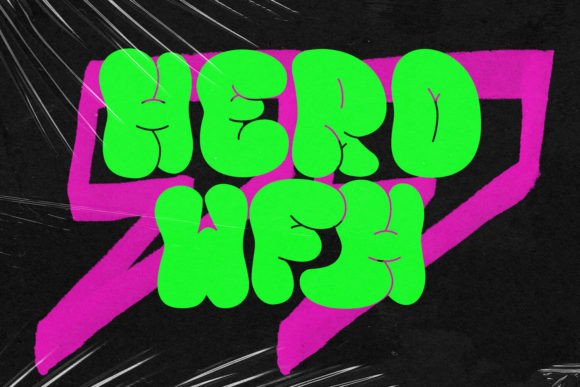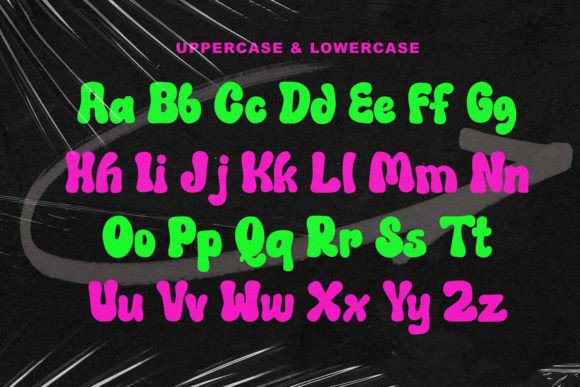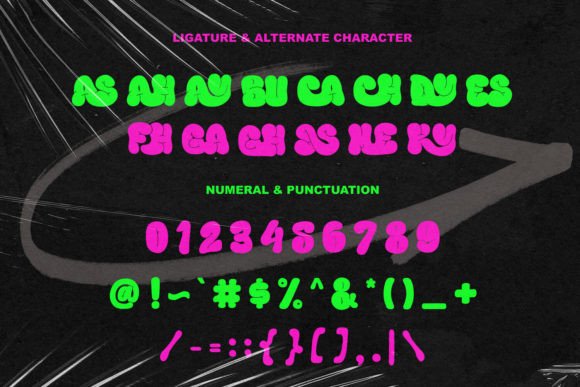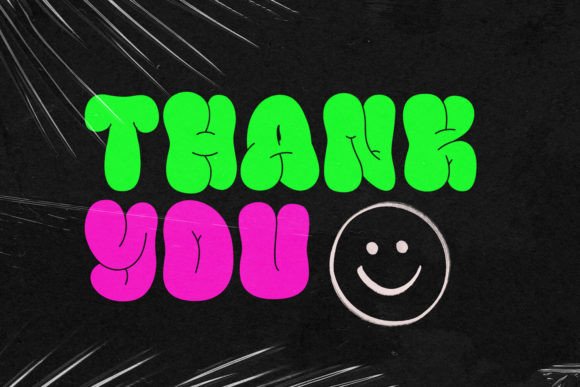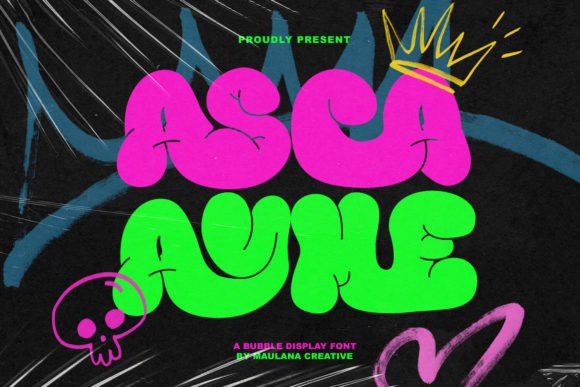
The Joy of Asca Ayme Bubble Display Font: A Designer’s Delight
Ah, the quest for the perfect font! I still remember the time I was working on a project for a children’s party invitation. My client wanted something fun, playful, and eye-catching. I spent hours scrolling through font libraries, but nothing seemed quite right. That was until I stumbled upon Asca Ayme Bubble Display Font. It was love at first sight! ✨ The rounded letters and cheerful vibe instantly captured the essence of the project, and I knew I had found my go-to font for all things fun and bubbly.
An Honest Review: What I Love and What to Consider
- ✨ Playful and bubbly personality: Asca Ayme Bubble Display Font is perfect for adding a fun touch to your designs.
- ✅ Easily readable: Despite its playful nature, the font remains clear and easy to read, even in larger sizes.
- 💫 Versatile: It works beautifully for titles, headers, and short paragraphs, making it ideal for posters, banners, and more.
- 🎉 Evokes a youthful feel: This font is sure to bring a smile to your audience’s faces, making it perfect for projects targeting a younger demographic.
While Asca Ayme Bubble Display Font is amazing for display purposes, it does have a few quirks to consider:
- 🤔 Legibility at small sizes: As with many display fonts, Asca Ayme Bubble may not be the best choice for body text or smaller sizes, as some details might get lost.
- ⚠️ Limited use in formal contexts: Given its playful nature, this font might not be suitable for more formal projects, such as business reports or academic papers.
A Practical Guide: Using Asca Ayme Bubble in Your Design Workflow
The Story Behind Asca Ayme Bubble
Asca Ayme Bubble Display Font was created with the intention of capturing the essence of playful, carefree designs. While the exact backstory of the font might not be well-documented, it’s clear that the designer aimed to create a typeface that would bring joy and a sense of youthfulness to any project. Whether used for a children’s book, a party invitation, or a fun advertisement, Asca Ayme Bubble is sure to leave a lasting, positive impression.
Q: Is Asca Ayme Bubble suitable for body text?
A: While it’s primarily designed as a display font, Asca Ayme Bubble can be used for short paragraphs. However, for longer texts, a more readable font might be preferable.